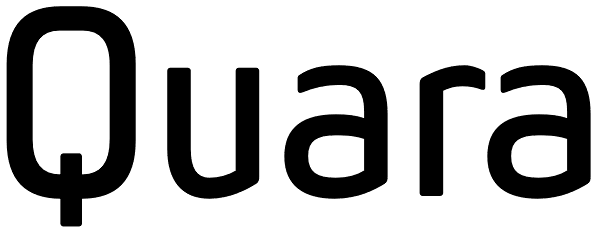
Quara
Quara is a typeface that takes its cues from cutting edge technology and new gadget lust. Quara enjoys short downloads on the web, long walks on mobile devices, and romantic dinners by LED light. An avid gamer (esp. MMORPG) and science fiction fan...